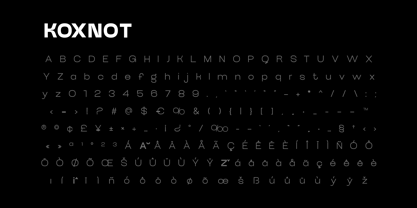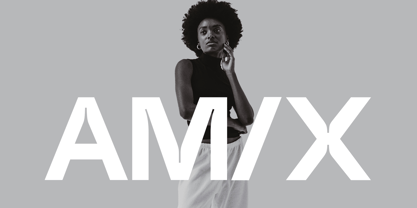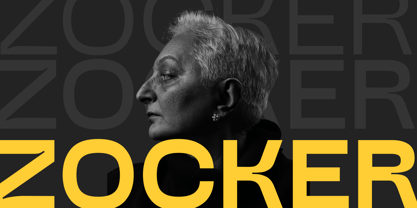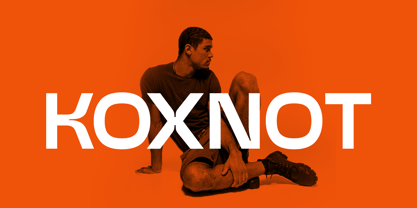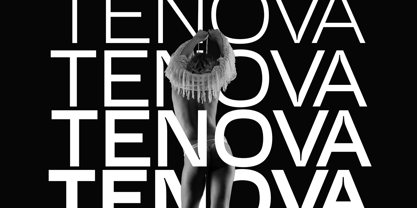
Koxnot
by FoxType
Koxnot Display is a meticulously crafted font, designed to make a bold statement in your creative projects. Ideal for posters, magazine covers, headlines, Logo, Branding and more, this font brings a modern and dynamic touch to any design.
Key Features:
Neat and Precise: Each character is carefully designed to ensure clarity and visual appeal.
Versatile Usage: Perfect for creating eye-catching posters, striking magazine covers, and attention-grabbing Headlines.
Transform your branding designs with the distinctive style of Koxnot Display Typeface, a font that combines elegance and impact seamlessly.